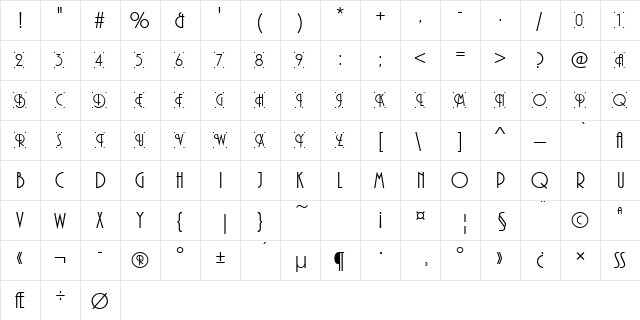
URWPlanaCamDReg Regular
Design Context for URWPlanaCamDReg Typeface
URWPlanaCamDReg takes a measured approach to typography — its balanced proportions and neutral character make it a reliable workhorse for both digital and print work.